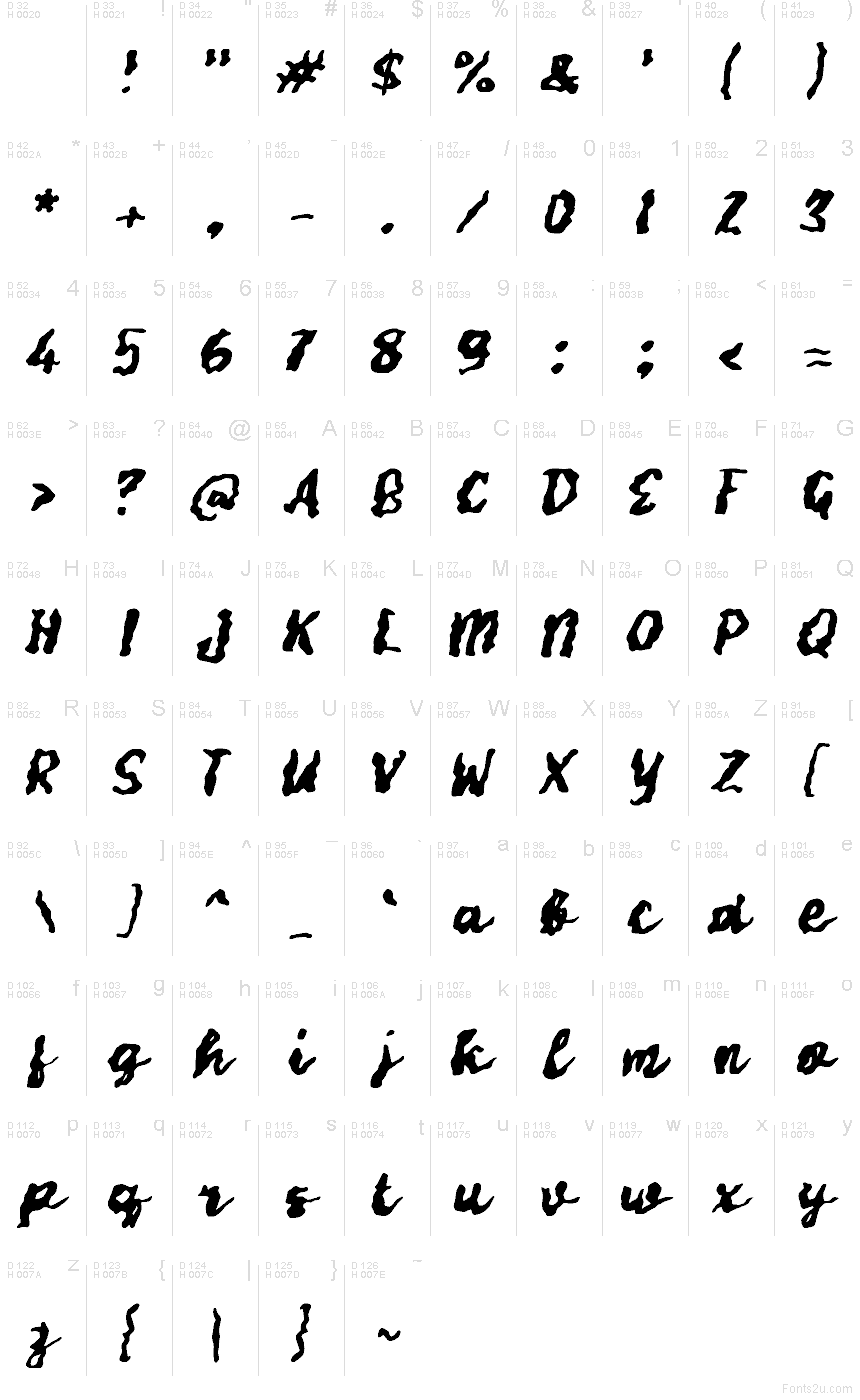
Vadogle
Vadogle font by wepfont.com is a free brush script typeface with a wild, inky energy that feels like it was painted in one fast, dripping motion. Thick, blobby strokes bunch together, then stretch into long, liquid tails, giving the wordmark a spooky, handmade rhythm that’s hard to ignore. It’s rough, messy, and a little eerie—like wet paint sliding across a poster board—making every word feel urgent and alive.
Using Vadogle, this free font really shines on horror posters, Halloween event branding, escape room logos, thriller book covers, edgy band artwork, and social promo graphics that need a raw, hand-done punch. The tight, flowing texture lets your titles read as one bold splash, especially at larger sizes. Pair Vadogle with a simple sans serif for body copy to keep the wildness focused where it matters most: your main headline.